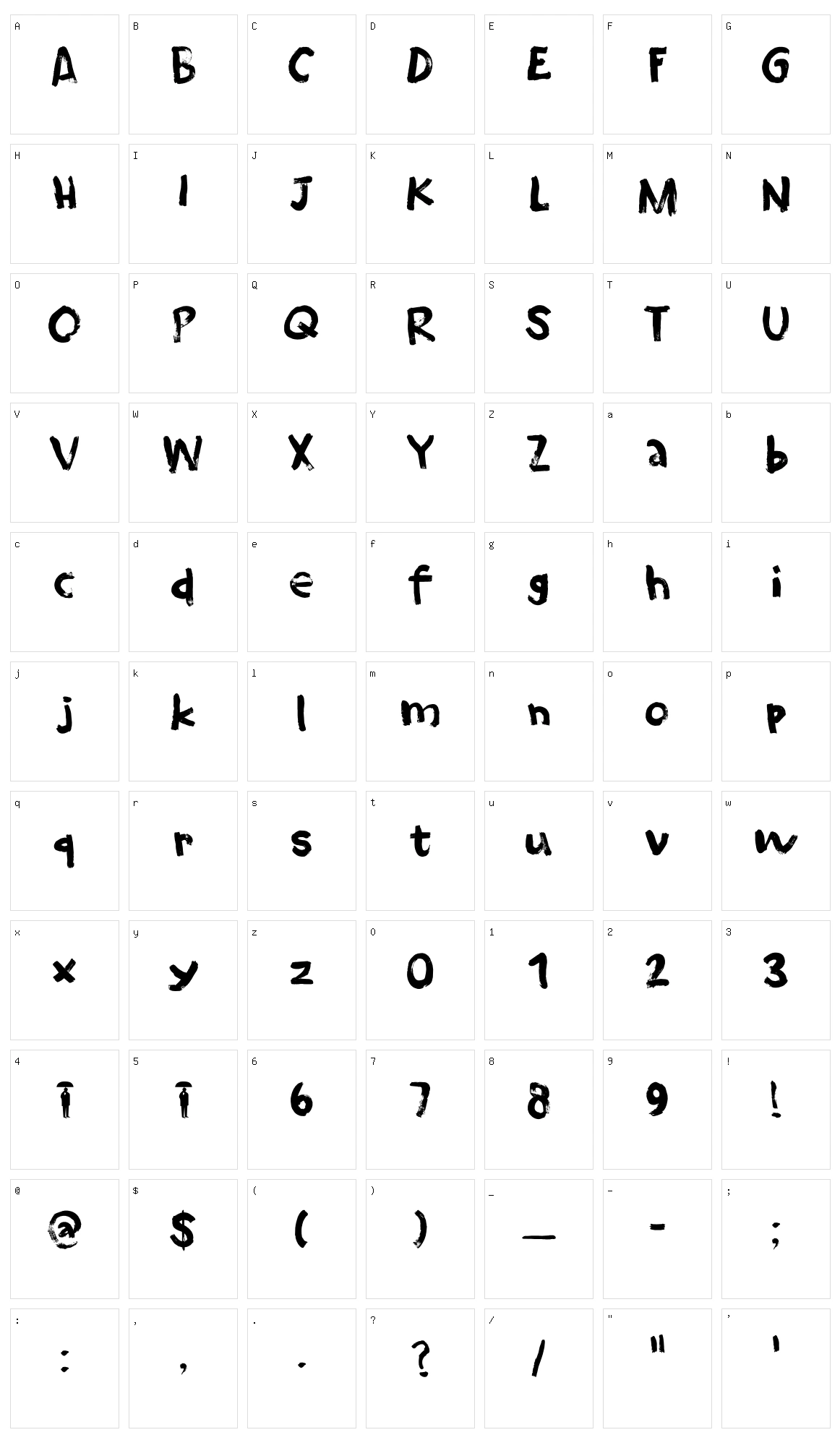
The free font Umbrella Man is carefully designed by Hanoded, showcasing a thoughtful balance of creativity and usability and falls under the Trash font style. When you download the ZIP file, it contains only 776.38 KB of font files, making it lightweight and quick to download. Please review the license details below to understand permitted usage and distribution rights. If license information is not available, we recommend using this font for personal projects only or contacting the author directly for commercial usage permissions.